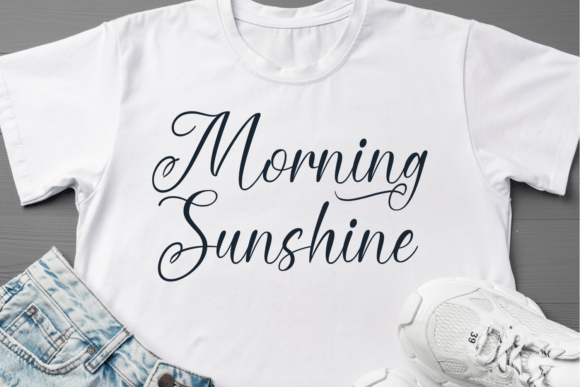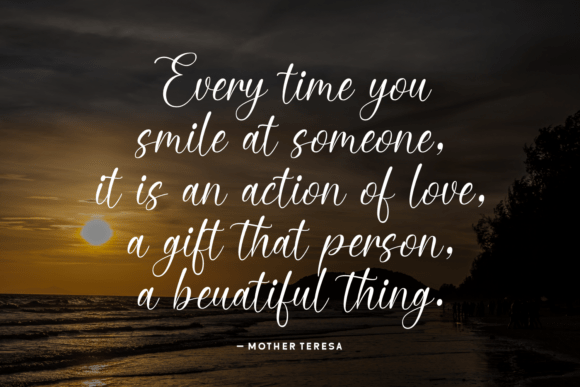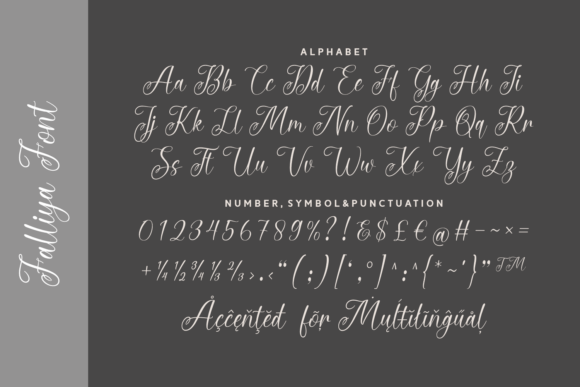
Introduction to Falliya Font
Have you ever found yourself pouring over a blank page, trying to bring your creative vision to life? As designers, we’ve all been there – staring at a blank canvas, waiting for the perfect font to spark our imagination. For many, that spark came with the discovery of Falliya Font, a breathtaking calligraphy font that elevates any design to new heights. With its high-contrast strokes and sophisticated curves, Falliya Font is the perfect design resource for adding a touch of sophistication to your next creative project.
Whether you’re working on an upscale branding project, product packaging, or stylish invitations, Falliya Font is the perfect addition to your design toolkit. Its high-quality strokes and refined curves are sure to impress, making it a valuable asset for any designer looking to elevate their work. And the best part? You can download Falliya Font for free, making it an accessible design resource for designers of all levels.
Key Features of Falliya Font
- High-quality design resource ideal for creative projects, with a unique aesthetic that sets it apart from other fonts.
- Features a transparent background, allowing designers to easily overlay text on images and other design elements.
- Designed to be versatile and suitable for a wide range of applications, from branding and marketing materials to digital products and print materials.
- Includes multiple font styles and weights, providing designers with a range of options to suit their creative vision.
Honest Review: Falliya Font
I recently came across the Falliya Font, and I must say it’s a fantastic addition to my design resources. As a designer, I’m always on the lookout for high-quality fonts that can elevate my creative projects.
The Falliya Font is a beautiful, elegant script font that works perfectly for titles, headings, and even body text. It’s free to download and comes with a transparent background, making it super versatile for use in various design contexts.
- ✨ Elegant script style that’s perfect for creative projects
- ✨ High-quality design that’s suitable for print and digital use
- ✨ Transparent background for easy customization
- ⚠️ Limited character set, may not be suitable for extended text content
- ⚠️ Not ideal for use in small text sizes due to potential readability issues
Overall, the Falliya Font is a great addition to any designer’s toolkit. Its elegant style and high-quality design make it perfect for creative projects, and the transparent background is a nice touch. While it may have some limitations, I think it’s definitely worth checking out for your next design project.
Tips for Getting the Most Out of Falliya Font
Experiment with different font sizes and styles to add visual interest to your design. Use the transparent background feature to create a cohesive look. Don’t be afraid to mix and match the Falliya Font with other design elements to create a unique look.
The Falliya Font is perfect for a variety of creative projects, including graphic design, branding, and digital art. Its high-quality design makes it ideal for business cards, brochures, and other marketing materials.